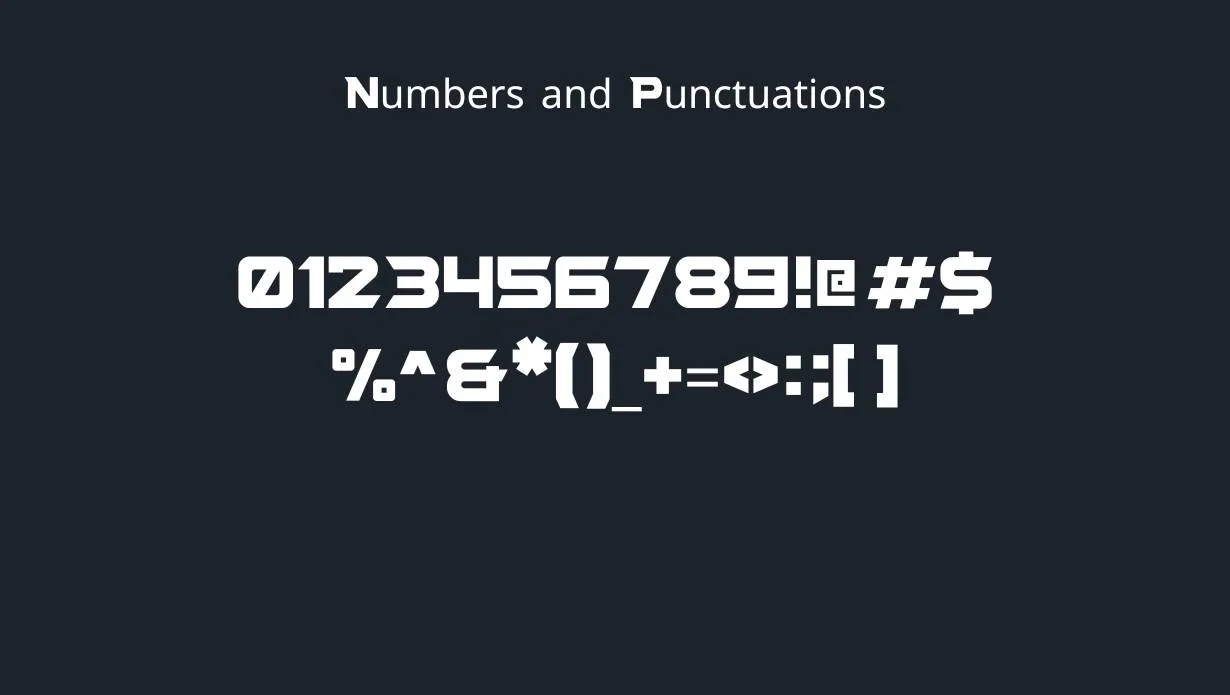
Poggers Font Free Download
Poggers Font comes from the display font family with thick characters. The letterform has bold lines with slight outward edges.
Poggers Font Info
| Name | Poggers Font |
| Designer | Travis Howell |
| Style | Display |